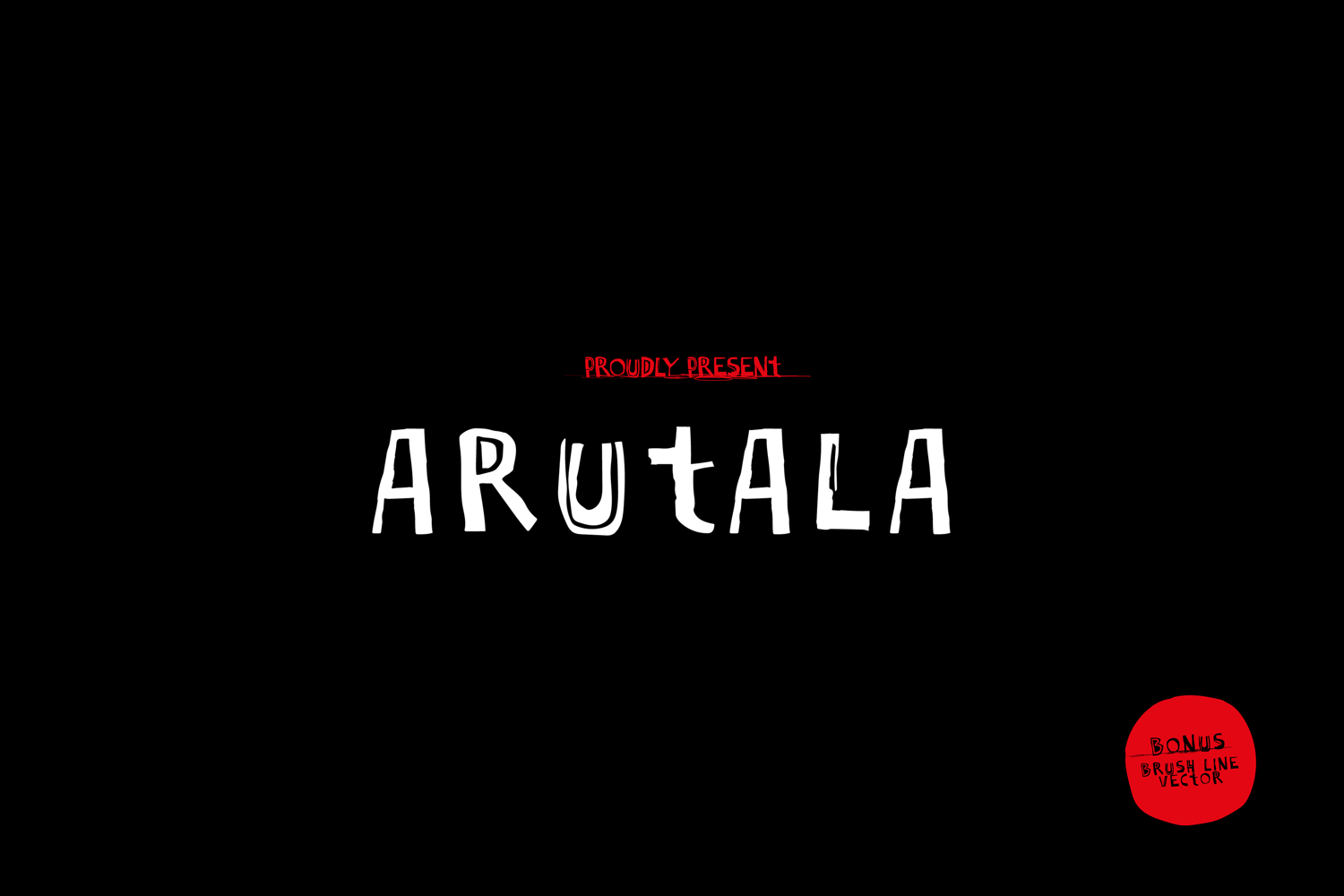
Arutala Handwritten
Arutala-Handwriting
Arutala is an incredibly unique and interesting display font with hand written doodle style. Masterfully designed to become a true favorite, this font has the potential to bring each of your creative ideas to the highest level!
Arutala Handwritten